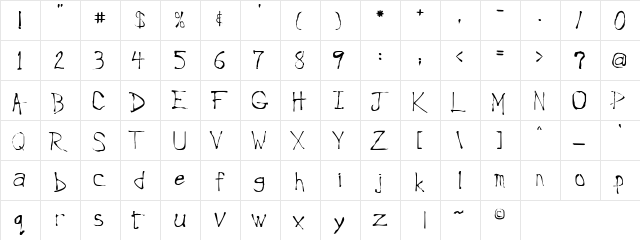
Roughedge Regular
Design Context for Roughedge Typeface
Roughedge trades polish for personality, using distressed and eroded forms to bring grit and attitude to creative work.
Suited to punk-influenced zines, underground music branding, streetwear, and raw, anti-corporate design.